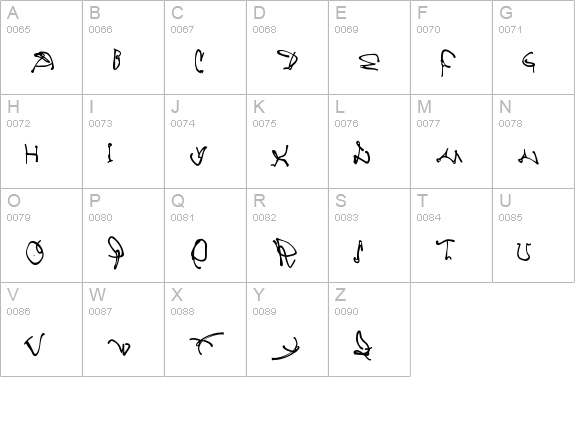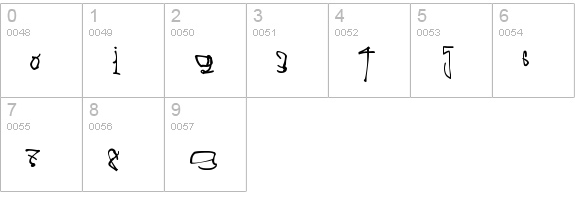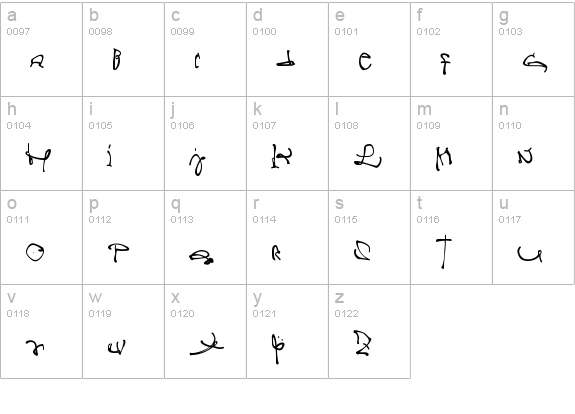
CrazyWritten Font Details
CrazyWritten font is a whimsical and playful typeface that is sure to add a touch of fun and excitement to any project. Its unique and eccentric design captures attention and brings a sense of creativity to your text. The irregular and wacky letterforms give off a sense of spontaneity and energy, making it perfect for designs that require a bold and unconventional look. Whether you're working on a poster, logo, or greeting card, CrazyWritten font will make your text stand out and leave a lasting impression on your audience. And the best part? It's completely free to download at FontsMarket.com, so you can start using this eye-catching font in your projects right away. Don't miss out on the opportunity to add a touch of craziness to your designs with CrazyWritten font!